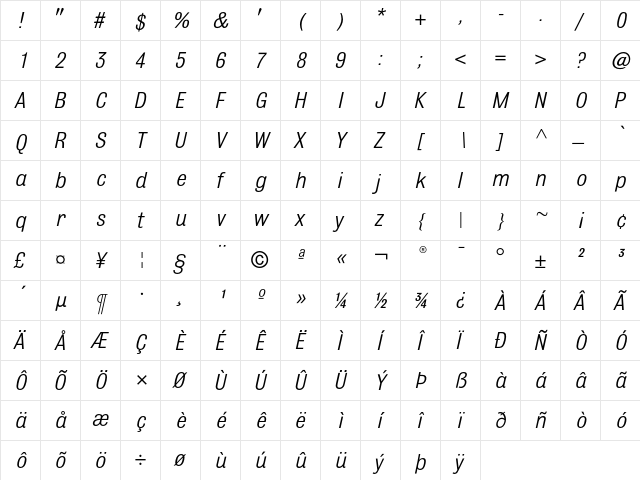
Bulldog Italic Font Preview
Bulldog Italic
Bulldog Italic Font Details
Design Context for Bulldog Typeface
Bulldog takes a measured approach to typography — its balanced proportions and neutral character make it a reliable workhorse for both digital and print work. The dynamic lean of this cut emphasises speed and emphasis in any layout.
Pro Tip: Try Bulldog for annotation and caption copy alongside an upright companion — the contrast in angle creates a dynamic but ordered typographic system.